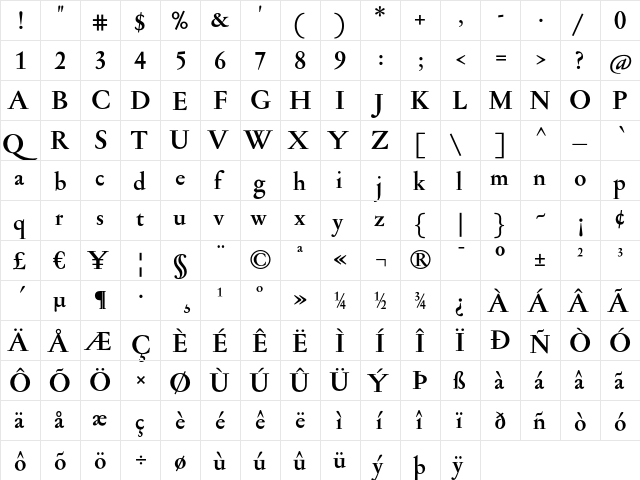
Jannon Med Bold Font Preview
Jannon Med Bold
| Foundry | Frantisek Storm, stormtype.com |
Design Context for Jannon Med Typeface
Jannon Med takes a measured approach to typography — its balanced proportions and neutral character make it a reliable workhorse for both digital and print work. Its bold stroke weight gives it real presence on the page.